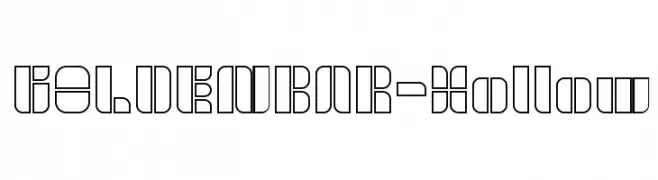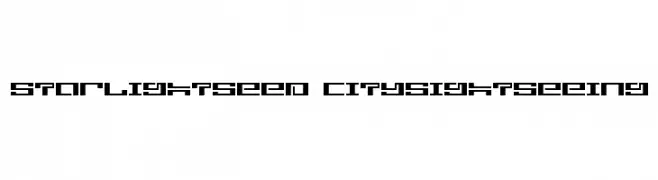
( weknow - Wino S Kadir - www.creativefabrica.com/designer/weknow/ )
A bold, geometric font with a futuristic, industrial design.
( weknow - Wino S Kadir - www.creativefabrica.com/designer/weknow/ )
A modern, geometric hollow font with bold outlines and a futuristic style.
( 010Bus )
A bold, pixelated font with a retro digital aesthetic.
( 010Bus )
A pixelated, blocky font with a retro digital aesthetic.
( 04 - www.04.jp.org )
A pixelated, retro-style font with a blocky, digital appearance.
( Alfabag )
A bold, pixelated typeface with a retro digital aesthetic.
( Beyond Design )
A bold, geometric font with a futuristic, digital aesthetic.
( Brynda1231 Industries )
A geometric, 7-segment display-inspired font with a technical and futuristic style.
( CROLrene )
A playful, clip-constructed font with a geometric and industrial style.
( Font Ocean - www.fontocean.com/ )
A pixelated, grid-based font with a retro digital aesthetic.